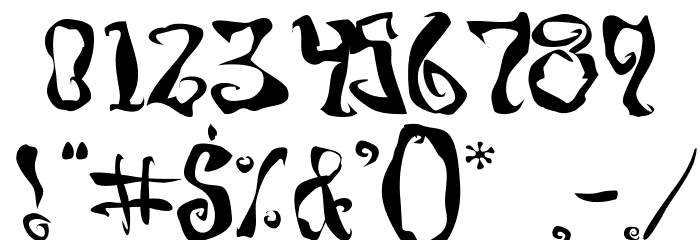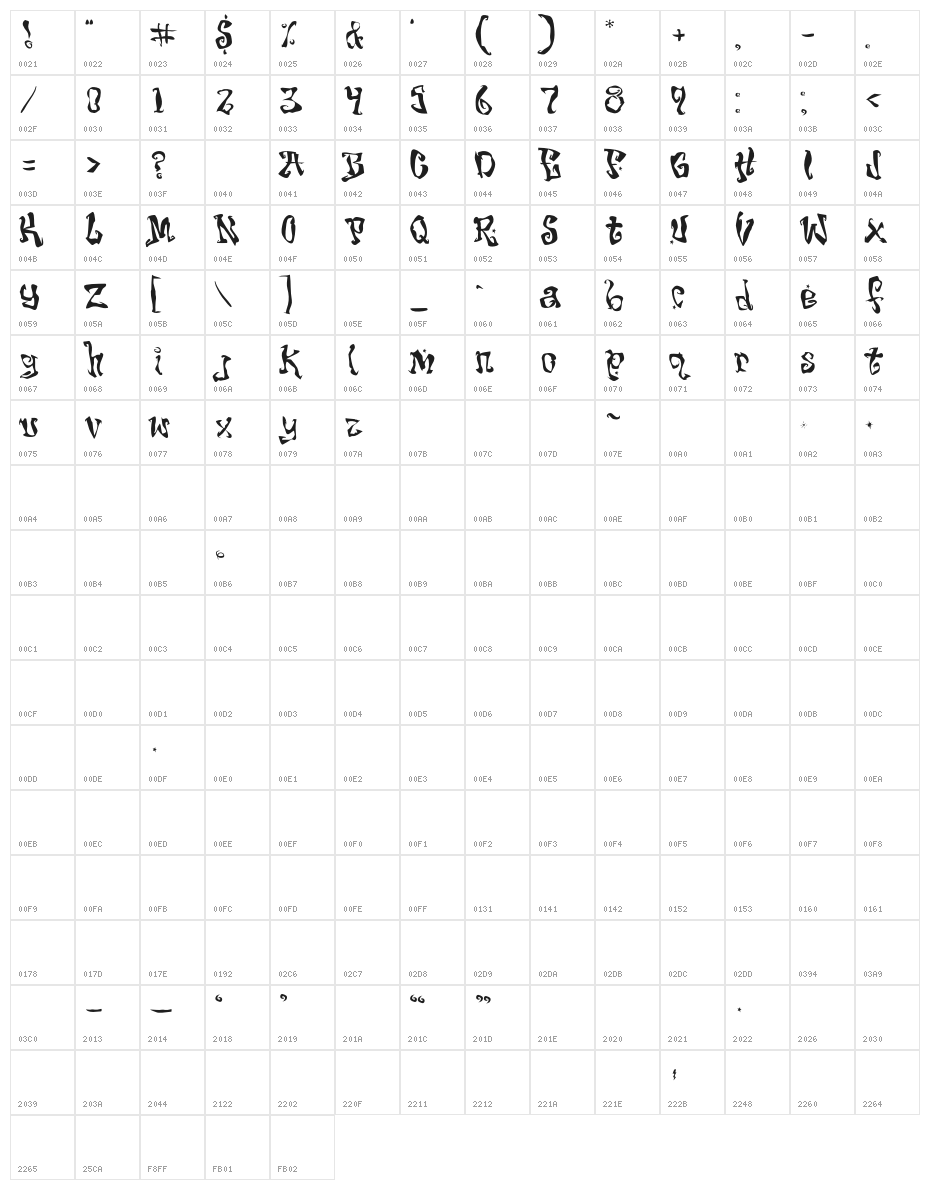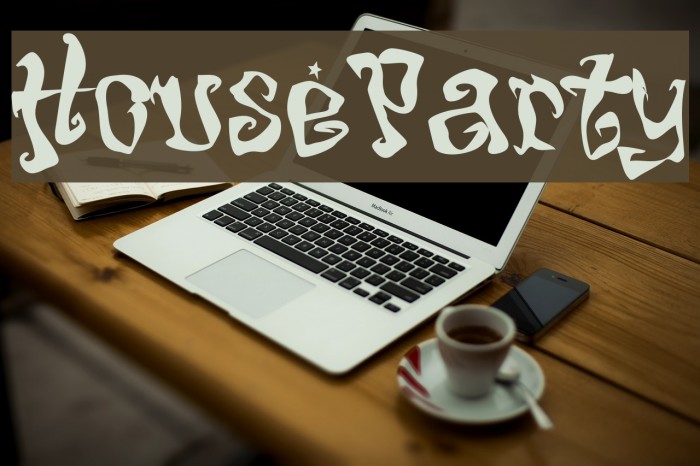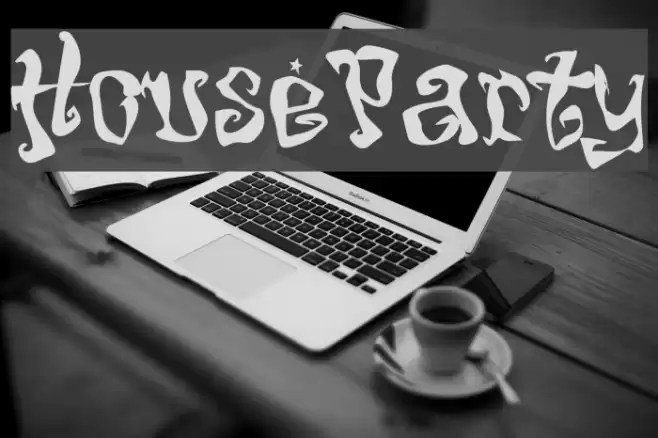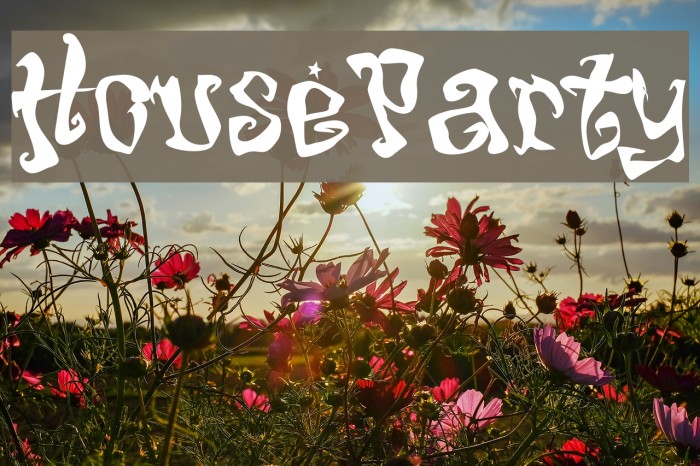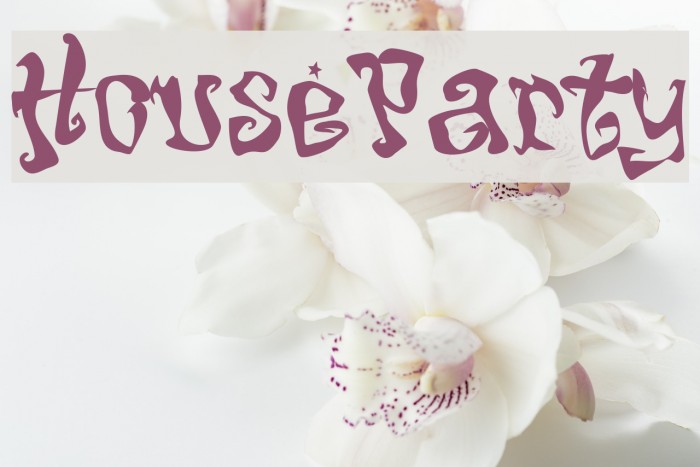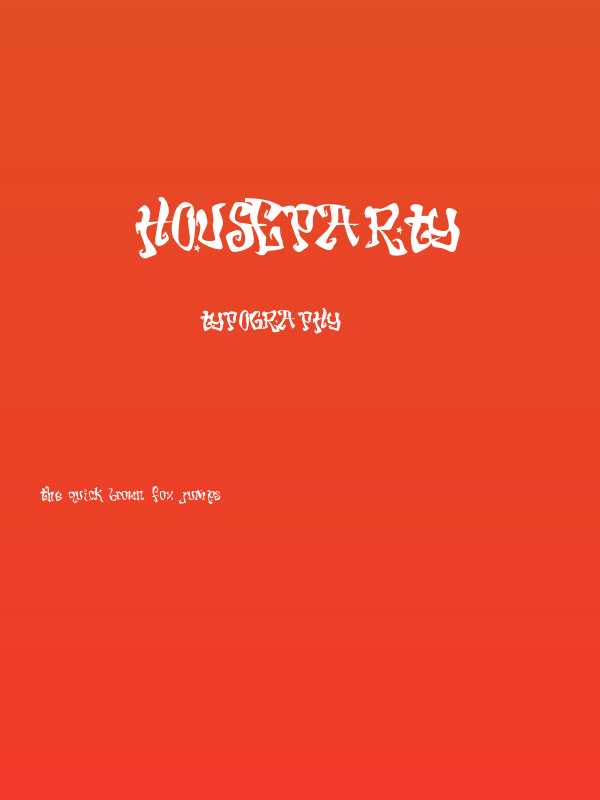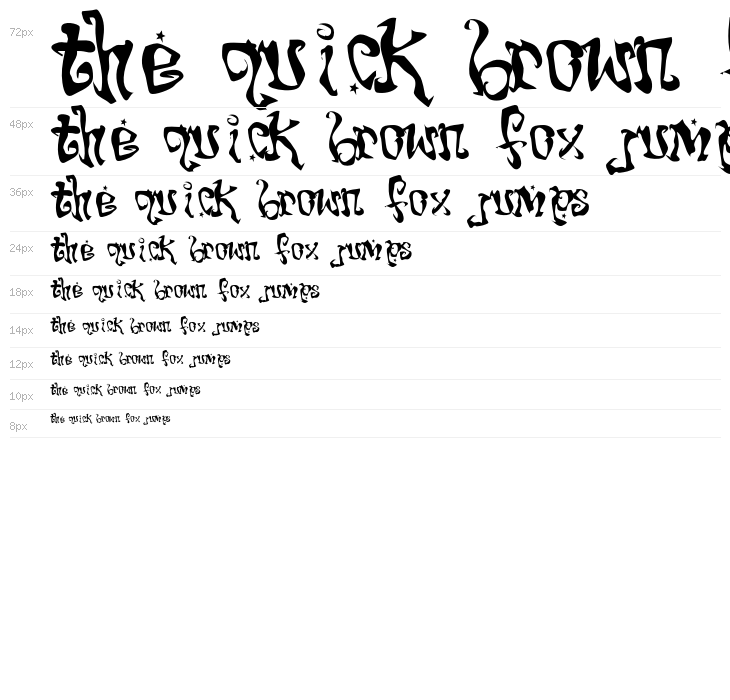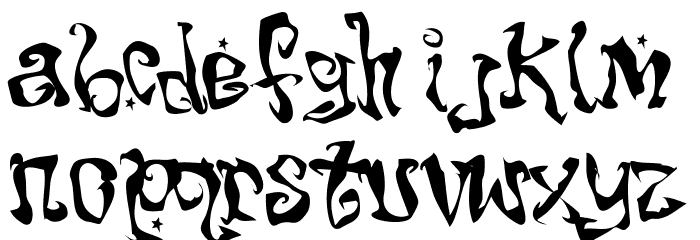
HouseParty Font
HouseParty Description
This font features a bold and dynamic style with a graffiti-like appearance. Each character is uniquely designed with sharp angles and curves, often incorporating star-like embellishments that add a playful and rebellious touch. The uppercase and lowercase letters maintain a consistent theme, while the numbers and special characters follow suit with similar artistic flair. The overall design is eye-catching and energetic, making it ideal for projects that require a strong visual impact.
| Overall Style | Modern, Urban |
| Proposed Projects | Ideal for street art designs, music album covers, event posters, and urban-themed branding. |